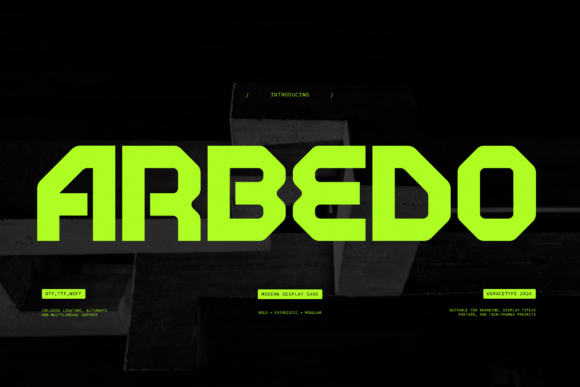
The Designer’s Delight: Arbedo Font
I’ll never forget the time I was working on a branding project for a trendy homeware store. My client wanted a modern, sleek look that would appeal to young adults, but I was struggling to find the perfect font. That’s when I stumbled upon Arbedo, a modern display sans font that instantly caught my attention. In this article, I’ll share my experience with Arbedo, its features, and how to make the most of it in your designs.
An Honest Review of Arbedo
What I Love About Arbedo ✨
- ✅ Modern and sleek design: Arbedo has a clean and minimalist look that’s perfect for modern designs.
- ✅ Highly versatile: This font can be used for a wide range of projects, from logos and branding to homeware designs, product packaging, and more.
- ✅ Easy to read: Despite its modern look, Arbedo is surprisingly easy to read, even at smaller sizes.
- ✅ OpenType features: Arbedo supports OpenType features, including glyphs and stylistic alternates, which can add an extra layer of creativity to your designs.
- ⚠️ Limited use for body text: While Arbedo is easy to read, it’s not the best choice for large blocks of body text. It’s better suited for headings and titles.
- ⚠️ Some characters may require manual kerning: As with any font, some characters may require manual kerning to achieve optimal spacing.
The Backstory of Arbedo
Arbedo was designed by a team of typographers who wanted to create a modern sans-serif font that would be perfect for display use. Inspired by the geometric shapes of modern architecture, Arbedo is a font that’s both clean and visually striking. Whether you’re designing a logo, a poster, or a product package, Arbedo is a great choice for adding a touch of modernity to your design.
Q: What is Arbedo font?
A: Arbedo is a modern display sans font that’s suitable for a wide range of design projects, from logos and branding to homeware designs and product packaging.
Q: Is Arbedo easy to read?
A: Yes, Arbedo is surprisingly easy to read, even at smaller sizes. However, it’s best suited for headings and titles rather than large blocks of body text.
Q: Does Arbedo support OpenType features?
A: Yes, Arbedo supports OpenType features, including glyphs and stylistic alternates. These features can add an extra layer of creativity to your designs.